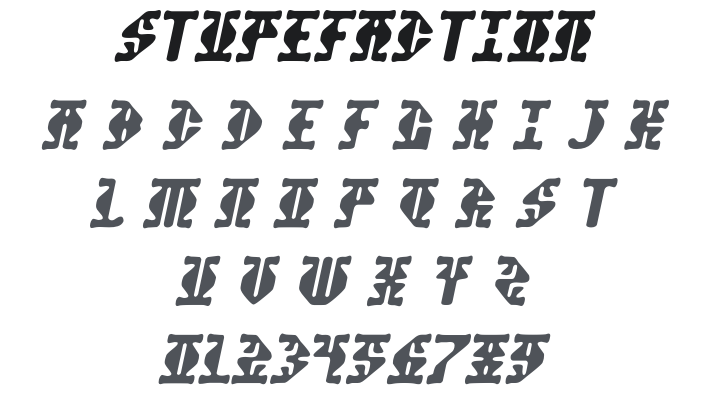
Stupefaction Font
About Stupefaction
Stupefaction is a bold, slanted display typeface where thick, organic letterforms are riddled with deep rounded cutouts — like alien glyphs from an undiscovered planet that somehow collided with 1960s counterculture and 1990s rave energy. The dense, italic mass gives it unstoppable forward momentum. Perfect for psychedelic posters, underground club flyers, sci-fi alien-themed designs, festival graphics, and any headline needing gloriously disorienting, otherworldly impact.